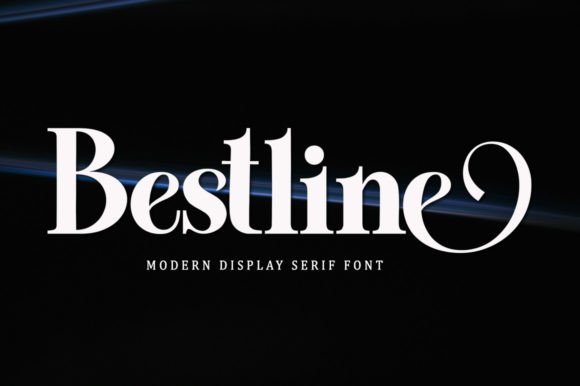
Introducing Bestline Font: The Epitome of Modern Serif Elegance
In the realm of typography, the right font can elevate a design from ordinary to extraordinary. For those seeking a touch of sophistication and elegance, Bestline Font is an exceptional choice. This stylish and modern serif font is meticulously crafted to bring a sense of refinement to any design project. Whether you’re working on editorial layouts, book covers, or branding materials, Bestline Font is the perfect companion for creating visually stunning and contemporary designs with a classic feel.
Key Features of Bestline Font
- PUA Encoding: Bestline Font is PUA (Private Use Area) encoded, which means that accessing all glyphs and swashes is effortless. This feature allows designers to have unparalleled flexibility and creative freedom.
- Clean Lines and Subtle Details: The font boasts clean lines and subtle details that contribute to its sophisticated and elegant appearance. These characteristics make Bestline Font versatile for a wide range of design applications.
- Serif Elegance: As a serif font, Bestline Font combines the classic appeal of serif typography with modern design elements. This fusion results in a font that feels both timeless and contemporary.
Ideal Use Cases for Bestline Font
Bestline Font’s versatility and elegant design make it suitable for various projects, including:
- Editorial Layouts: For magazines, newspapers, and online publications, Bestline Font offers a sophisticated look that enhances the reading experience.
- Book Covers: The font’s classic yet modern appeal makes it an excellent choice for book covers, especially for genres that require a touch of elegance, such as fiction, non-fiction, and biographies.
- Branding Materials: For brands aiming to convey sophistication, luxury, or professionalism, Bestline Font can be used in logos, business cards, and other marketing materials.
Tips for Using Bestline Font Effectively
To maximize the impact of Bestline Font in your designs, consider the following tips:
- Pair with Complementary Fonts: While Bestline Font is elegant on its own, pairing it with a sans-serif font can create a striking contrast that enhances readability and visual appeal.
- Adjust Line Spacing: Ensure that your text has adequate line spacing to prevent it from appearing too dense. This will also help in highlighting the font’s subtle details.
- Utilize Swashes and Glyphs: Take full advantage of the PUA encoding by experimenting with the available swashes and glyphs. These elements can add a unique touch to your designs.
Finding Inspiration with Bestline Font
When working with Bestline Font, it’s essential to stay inspired. Look to high-end publications, luxury brands, and contemporary art for ideas on how to incorporate this elegant font into your designs. The goal is to create a balance between modernity and tradition, allowing Bestline Font to be the centerpiece of your visual creations.
Bestline Font stands out as a premier choice for designers seeking a modern serif font that embodies elegance and sophistication. Its clean lines, subtle details, and PUA encoding make it an invaluable tool for creating editorial layouts, book covers, and branding materials with a contemporary look and a classic feel. By incorporating Bestline Font into your design projects, you’re not just choosing a font; you’re elevating your designs to new heights of visual excellence.
Final Thoughts
In the world of typography, Bestline Font is more than just a font; it’s a statement of style and sophistication. Whether you’re a seasoned designer or just starting out, this font offers the versatility and elegance needed to create stunning designs. So, take the first step towards elevating your typography and explore the endless possibilities that Bestline Font has to offer.